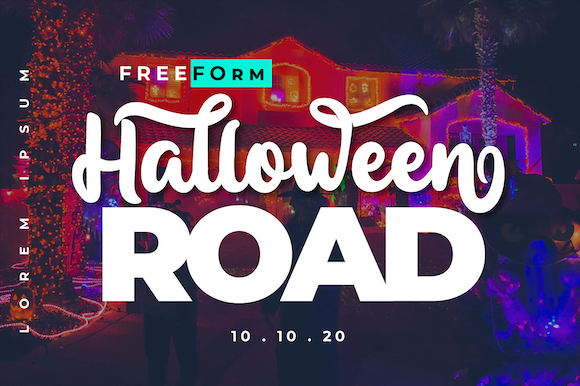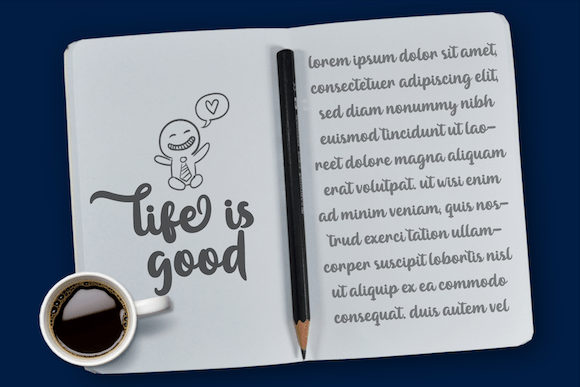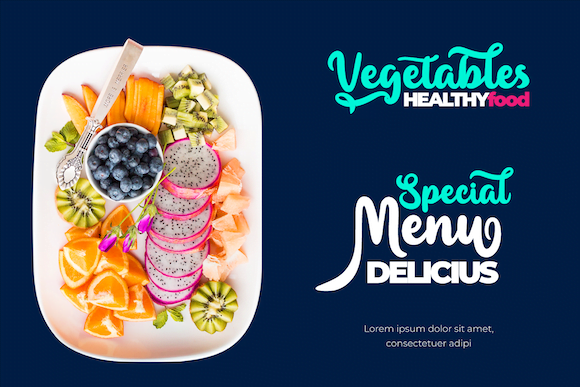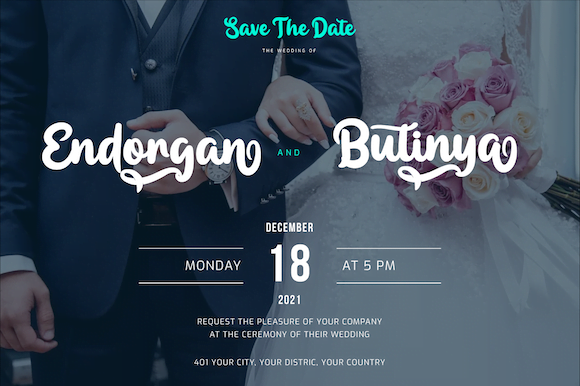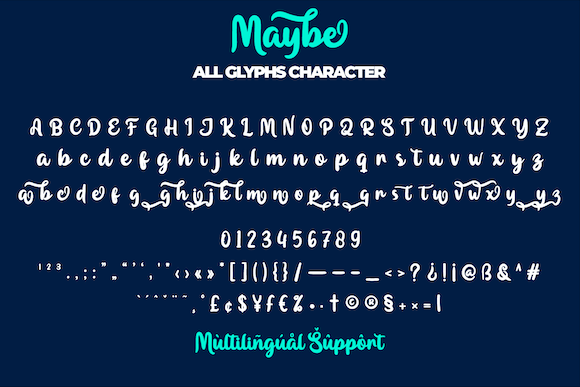
- Maybe – Handwritten Script Font
Maybe – Handwritten Script Font is the perfect choice for those seeking an elegant touch in every design project. With its smooth lines and soft flow, this font combines classic beauty with a modern style, making it suitable for various applications. From romantic wedding invitations to exclusive logo designs, Maybe offers a character full of emotion and warmth. Its legibility ensures that your message is conveyed clearly.
The font is highly versatile, providing a personal and artistic feel to greeting cards, branding, or any creative projects. Not only visually appealing, Maybe is meticulously crafted to maintain balance in every letter, creating a harmonious final result. It’s an ideal choice for designers looking for a script font with a graceful and timeless aura. Maybe is the perfect solution to add a captivating finishing touch to your work.